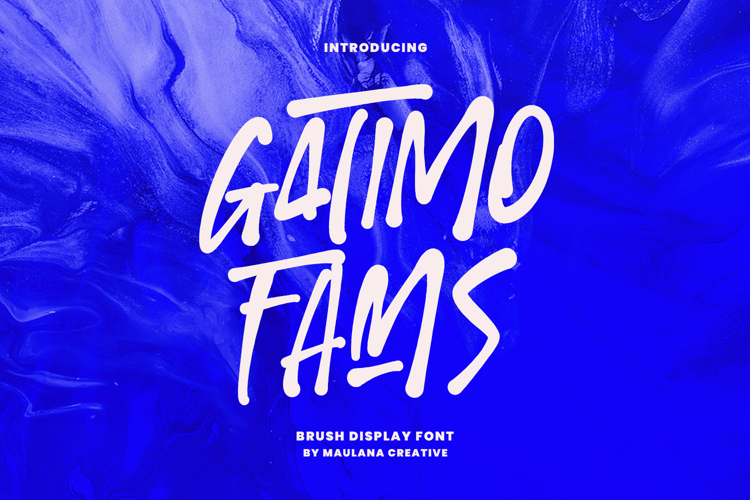
Gatimo Fams Brush Display Font
Gatimo Fams is a bold and energetic brush display font that captures a raw, street-style aesthetic. Hand-painted with authentic brush strokes, this typeface exudes a powerful, youthful, and contemporary vibe. Its dynamic, semi-slanted letters with varied thickness and texture make it perfect for designs that need to make a strong statement, such as music, sports branding, graphic design, gaming titles, and attention-grabbing social media. Gatimo Fams includes full uppercase characters, numbers, punctuation, and multilingual support, offering the versatility needed for diverse creative projects that demand a gritty, modern, and memorable look. Created by Maulana Creative, it's the ideal font for designers looking to infuse their work with an edgy, urban flair.
- Ligatures and Alternate Style